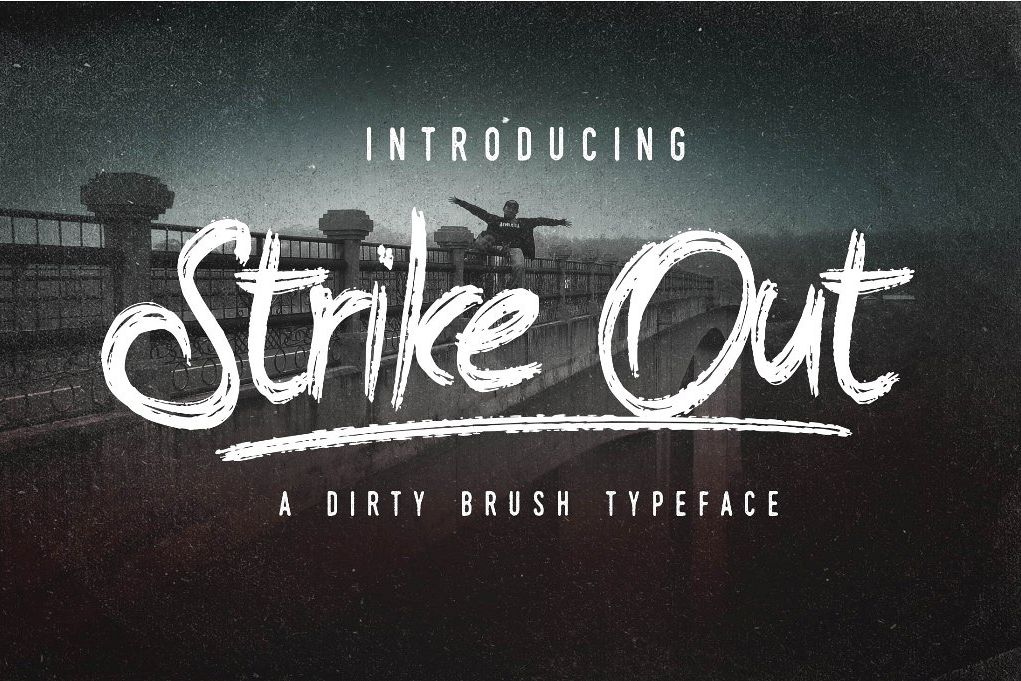
The Strike Out Typeface
The Strike Out Typeface A handmade typeface presented by Shirongampus studio. Suitable for digital lettering, branding, t-shirt, print, dark business cards, logo, poster, t-shirt, and for any graphic design.
Feature :
-Stylistic Alternates
-Swosh variations
-Multilingual Support